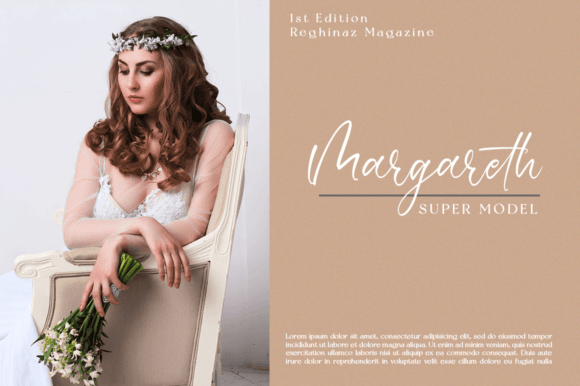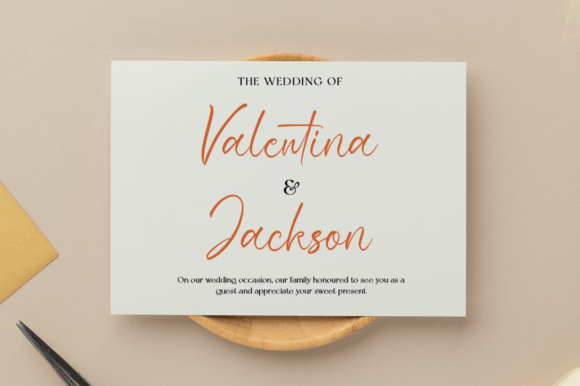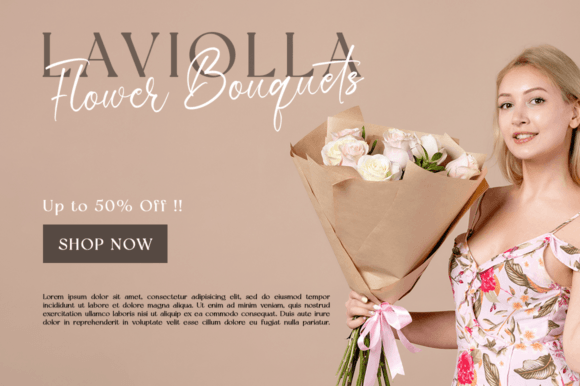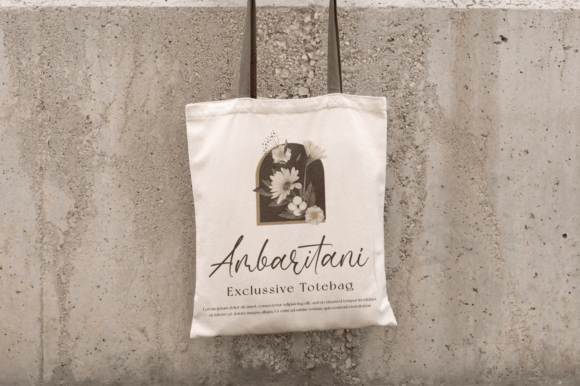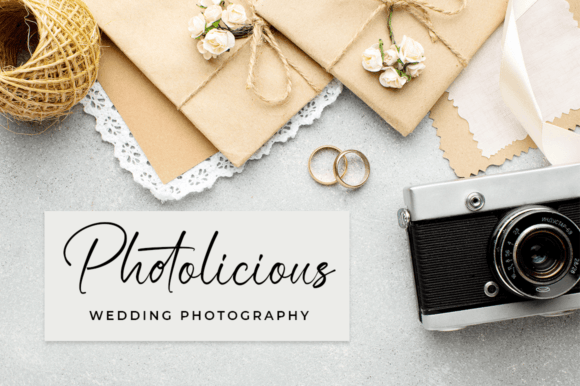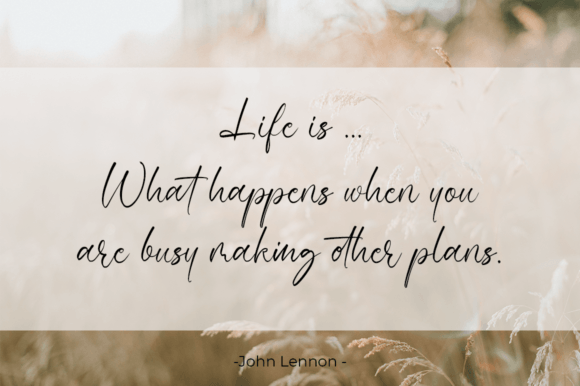
Introduction to Magnacata Font
Have you ever stared at a blank page, searching for the perfect font to bring your creative vision to life? The thrill of finding the perfect design resource can be exhilarating, and that’s exactly what we’re excited to share with you today – the stunning Magnacata Font. With its elegant and modern script style, this high-quality font is sure to elevate any of your creative projects, from logos and branding to invitations and social media posts.
Whether you’re a seasoned designer or just starting out, the Magnacata Font is an invaluable addition to your design arsenal. Its PUA-encoded design makes it easy to access all glyphs and swashes, giving you complete control over your creative project. And the best part? This beautiful font is available for free download, making it an accessible and transparent background for your next design adventure.
- Designed with a unique, modern aesthetic
Honest Review: Magnacata Font
I recently had the chance to experiment with the Magnacata Font for a creative project, and I must say, it’s been a pleasant experience. The font is a high-quality design resource that can elevate any design to the next level.
- The font’s versatility makes it suitable for a wide range of creative projects, from print materials to digital designs.
The Magnacata Font has a unique, elegant feel that adds a touch of sophistication to any design. Its clear, legible lines make it perfect for body text, while its decorative flourishes make it ideal for headings and titles.
- The font may not be suitable for extremely condensed or expanded text, as its lines can become distorted.
Overall, I’m impressed with the Magnacata Font’s quality and versatility. While it may have some limitations, it’s an excellent addition to any designer’s toolkit. I’d definitely recommend it for any creative project that requires a high-quality, elegant font.
The Magnacata Font is commonly used in creative projects such as: logo design, branding, and graphic design. Its high-quality design and transparent background make it an ideal choice for designers looking to add a touch of elegance to their work.